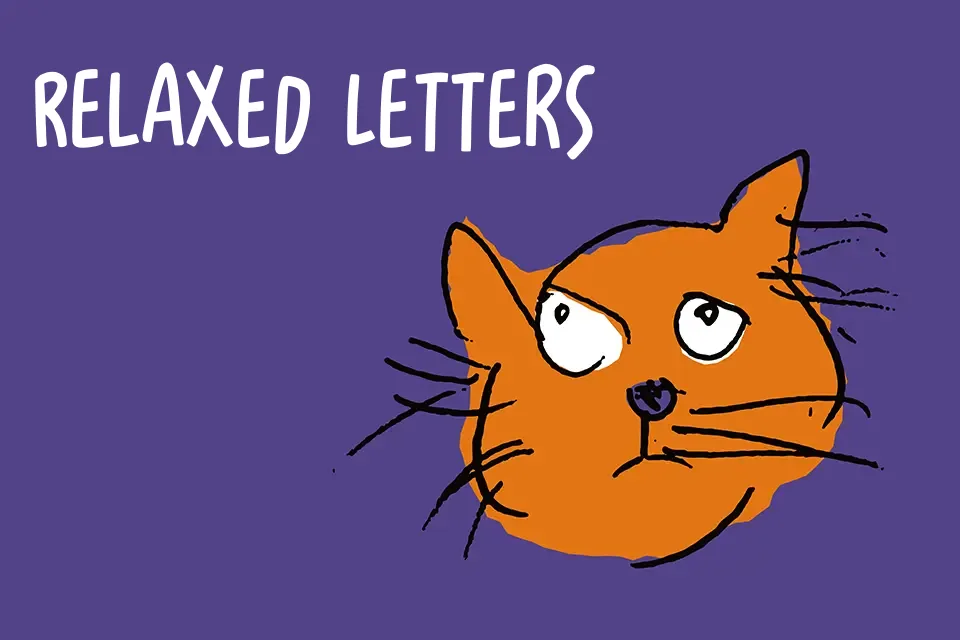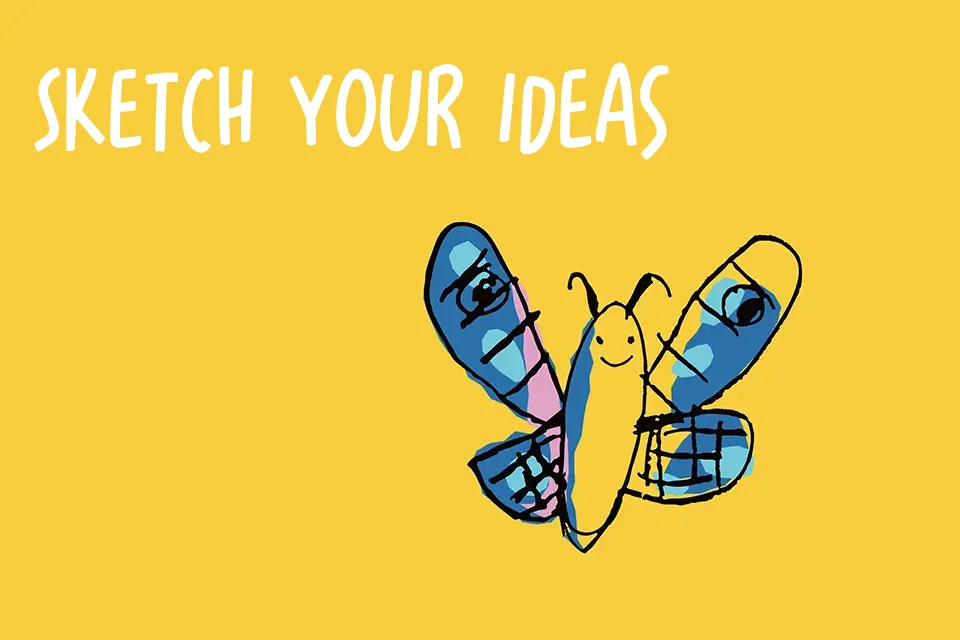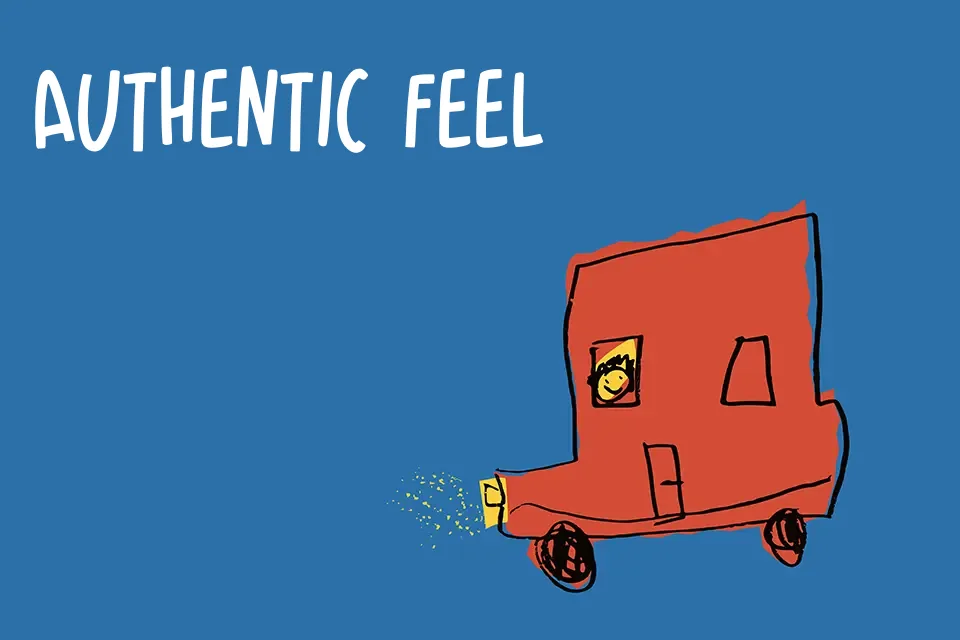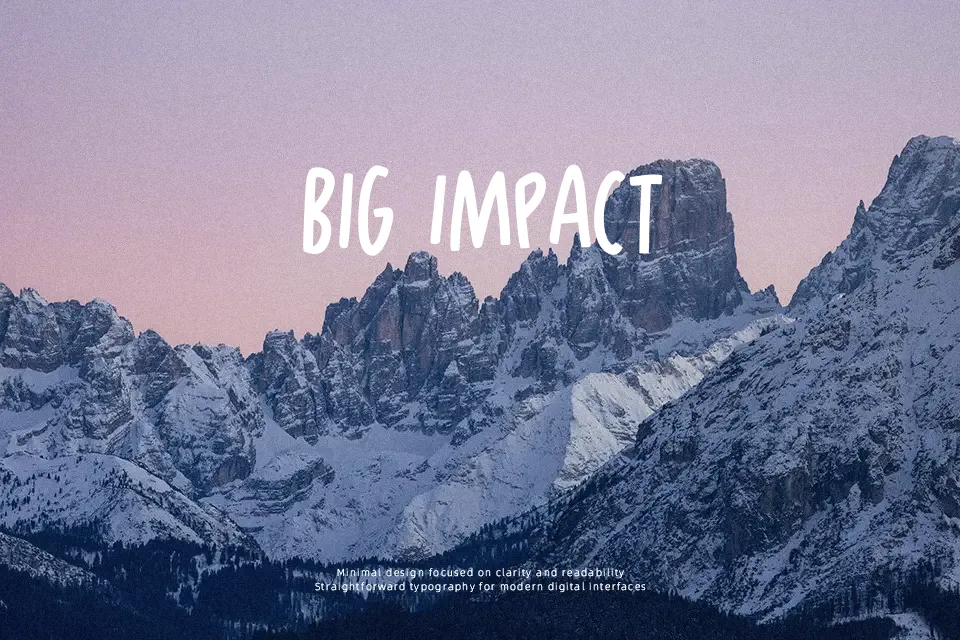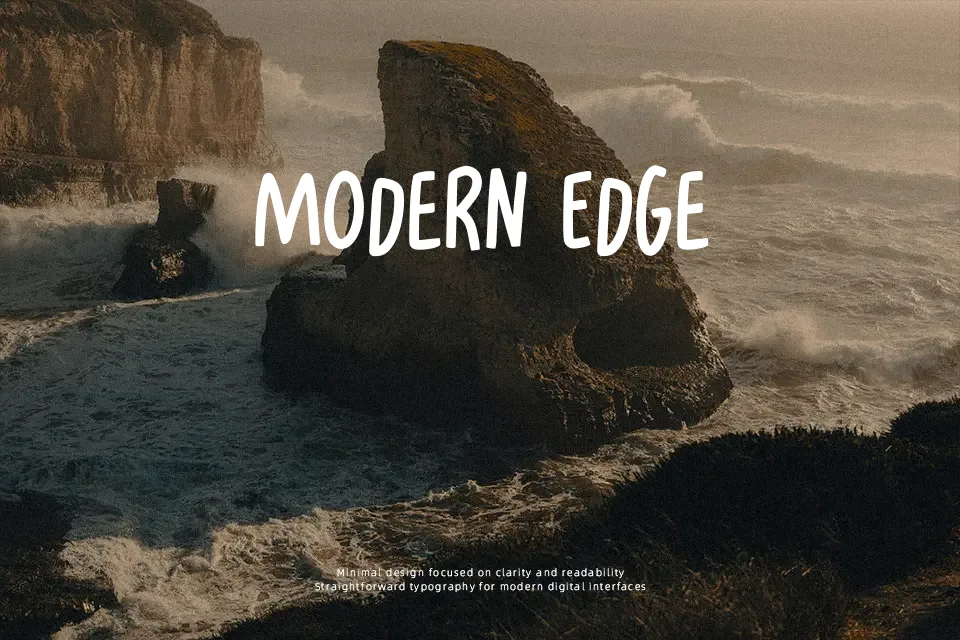
Chippie Font
Characterized by expressive, cartoonish forms, Chippie Font features narrow character proportions and minimal stroke contrast throughout its glyph set. The typeface incorporates slightly crooked vertical stems, softened terminals, and compact spacing that establish an upbeat, organic cadence. Such informal structural details preserve clear legibility in prominent headers, making the letterforms ideal for picture book covers, novelty merchandise, amusement park signage, and snack wrappers. Nevertheless, the eccentric alignment and compact widths hinder reading comfort when set in continuous editorial paragraphs. For brief, high-impact titles, the design offers charming individuality that captures attention without losing overall clarity.
Best For: picture book covers, amusement park signage, snack food packaging, novelty apparel graphics
Not Ideal For: continuous editorial paragraphs, legal documentation, corporate financial spreadsheets, technical user manuals
Perfect for advertising, headline, and kids, with a creative and comic style.